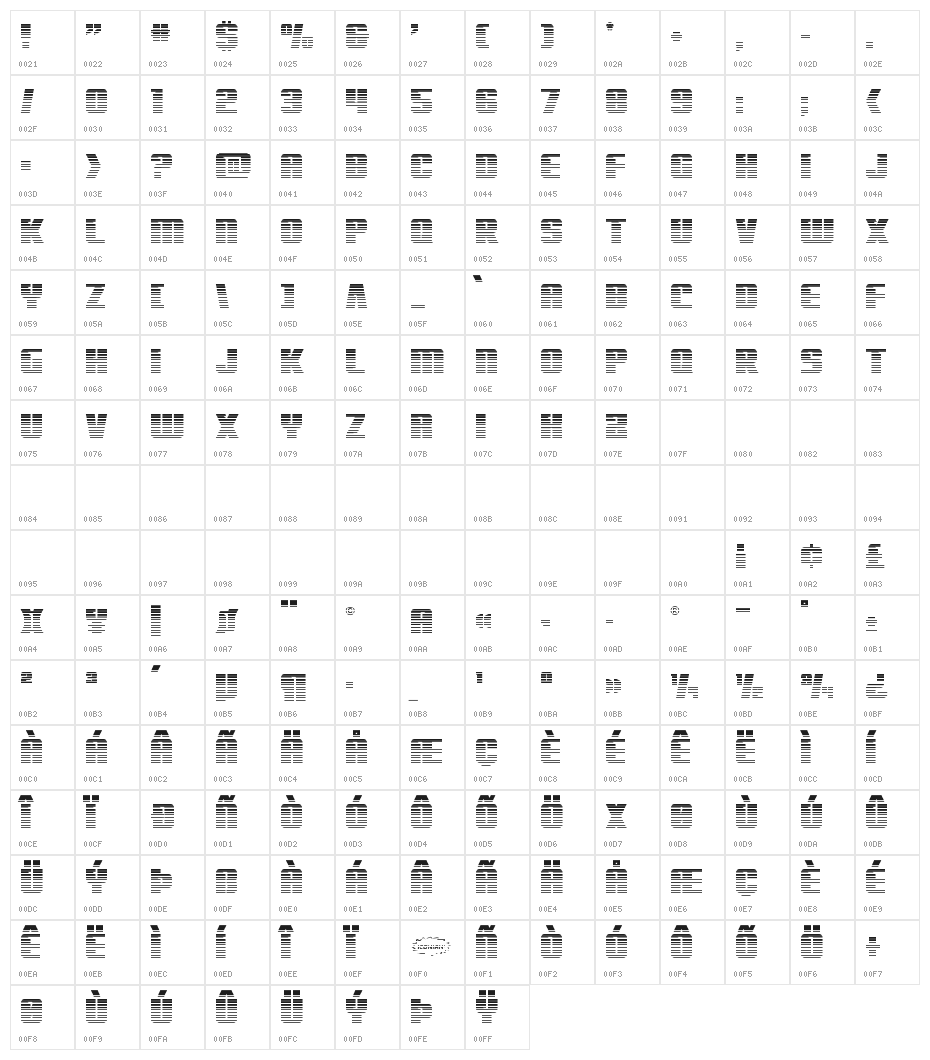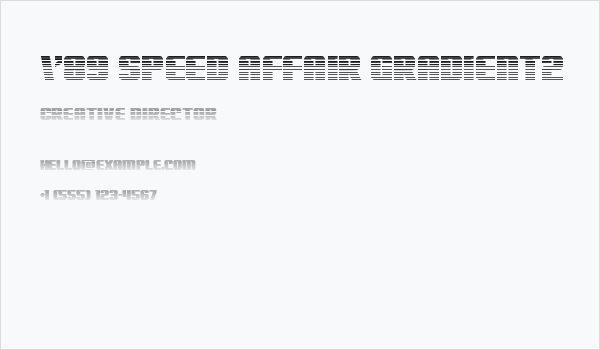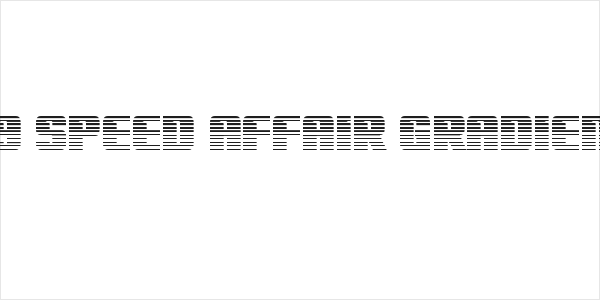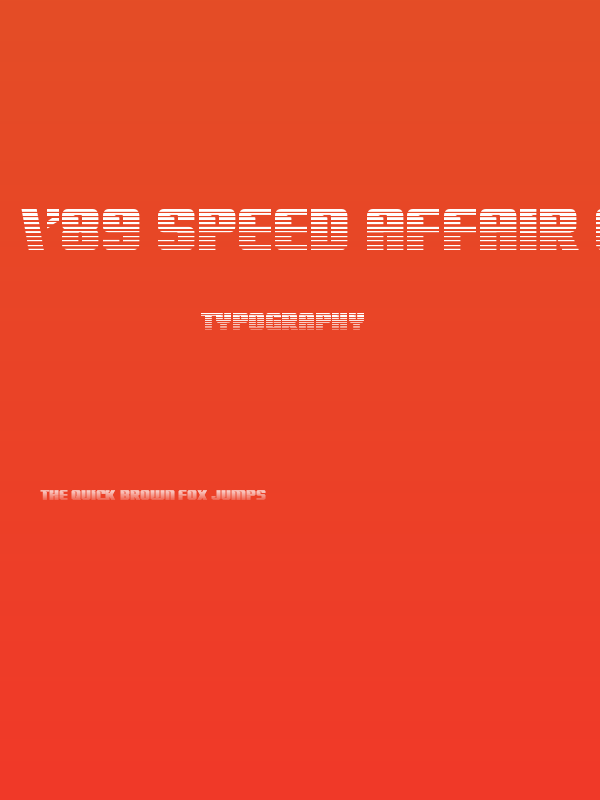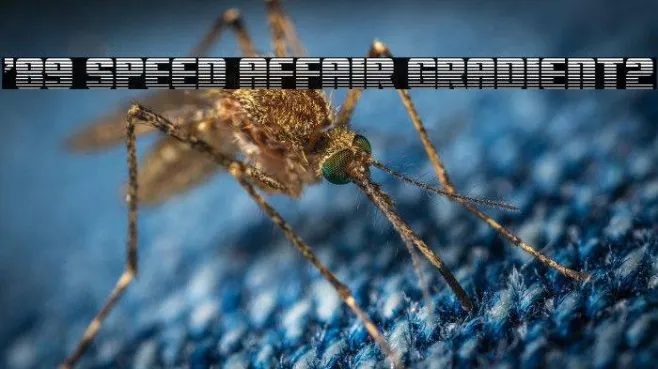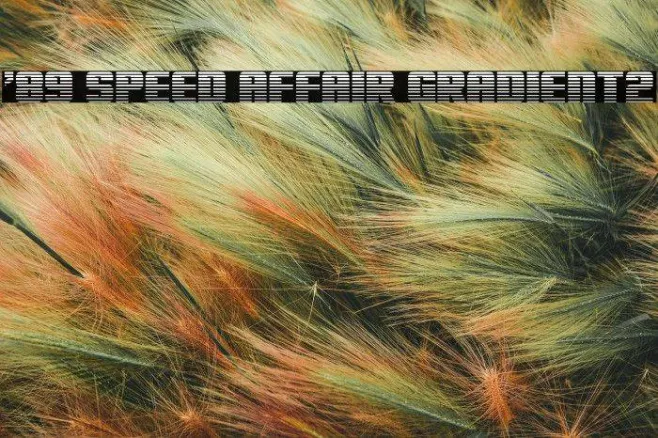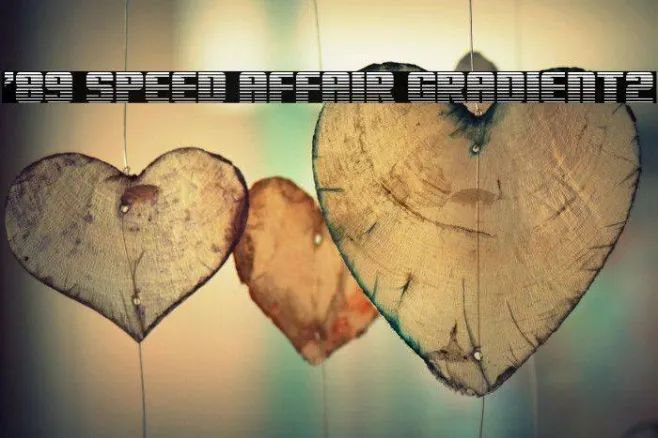
'89 Speed Affair Gradient2 Font
'89 Speed Affair Gradient2 Description
This font features a dynamic, high-speed aesthetic with horizontal lines cutting through each character, creating a sense of motion and energy. The uppercase and lowercase letters, as well as numbers and special characters, maintain a consistent pattern of stripes that suggest speed and movement. The design is bold and impactful, making it ideal for projects that require a futuristic or high-tech feel. The characters are wide and evenly spaced, enhancing readability while maintaining a unique visual style.
| Proposed Projects | Ideal for automotive branding, sports event posters, futuristic designs, and technology-related projects. |